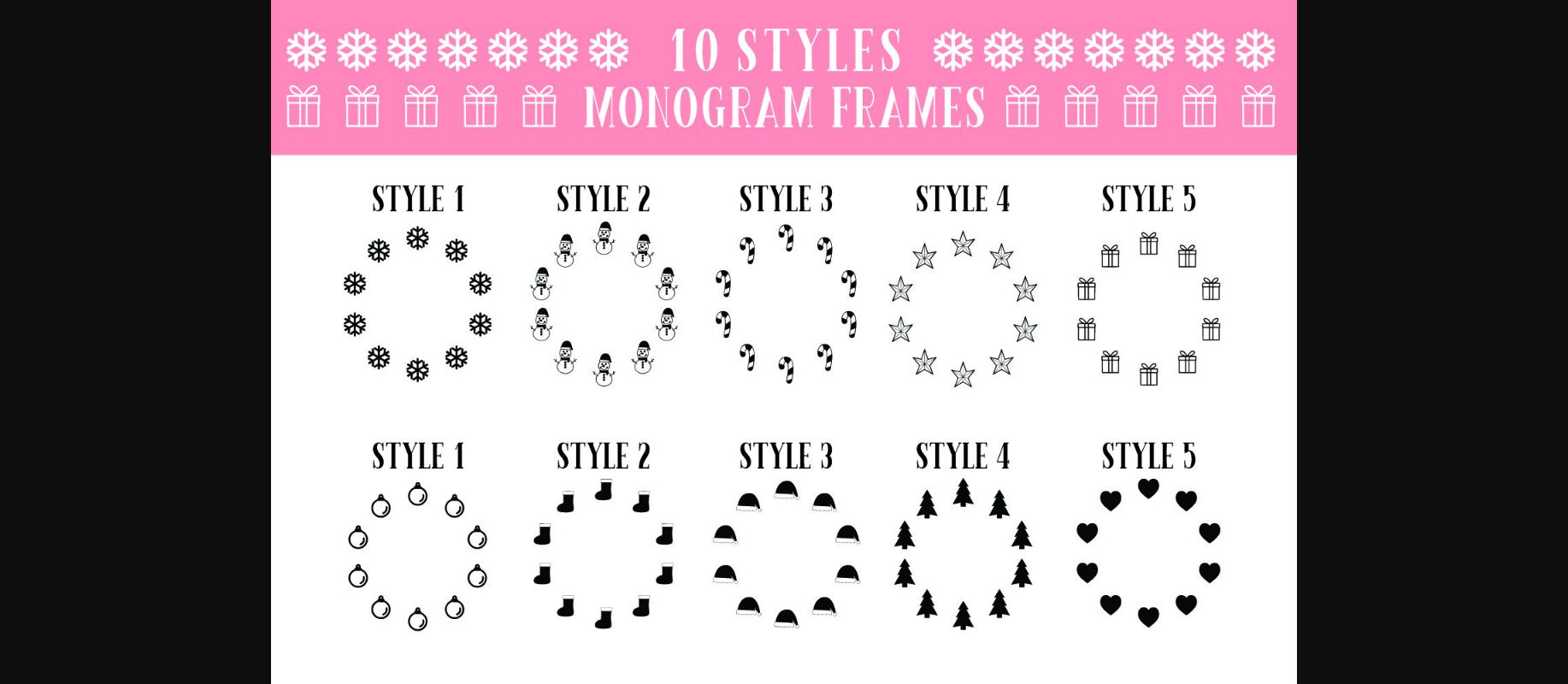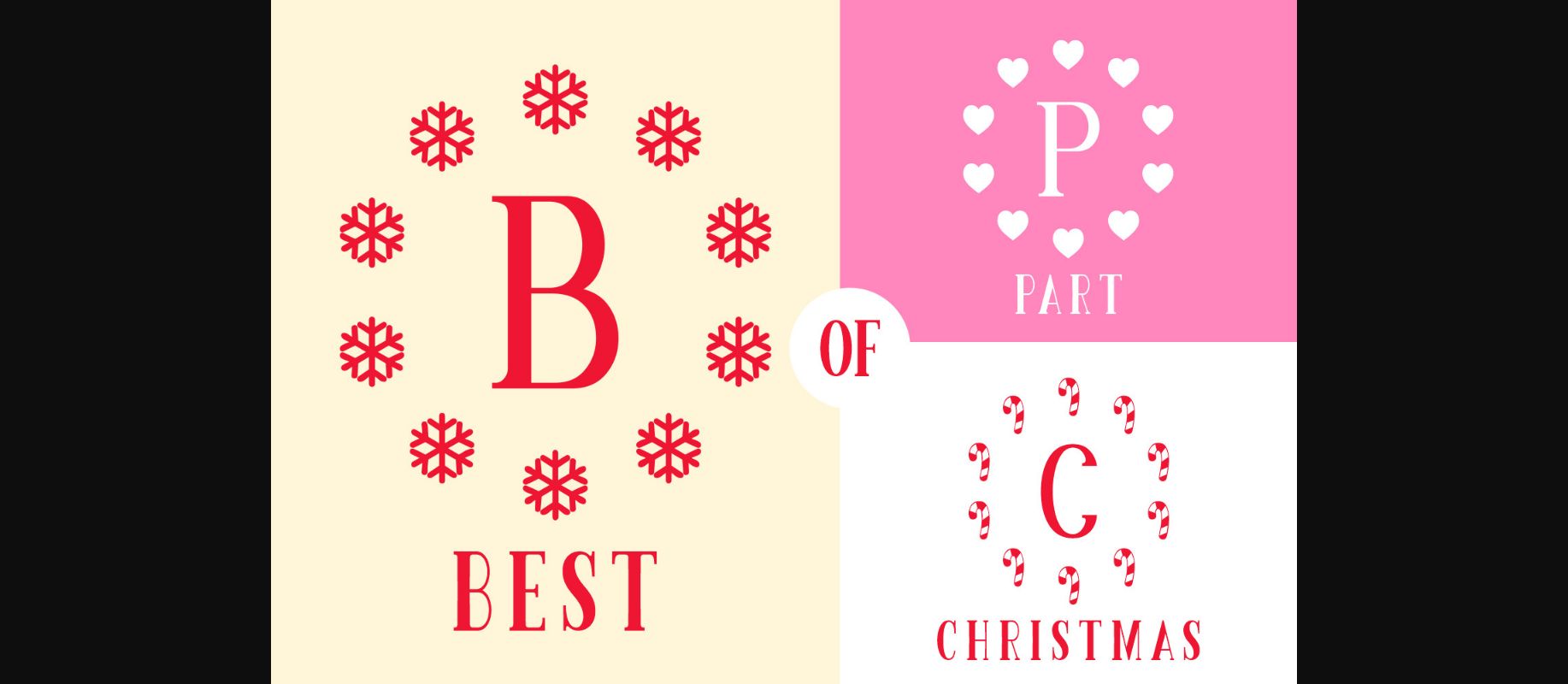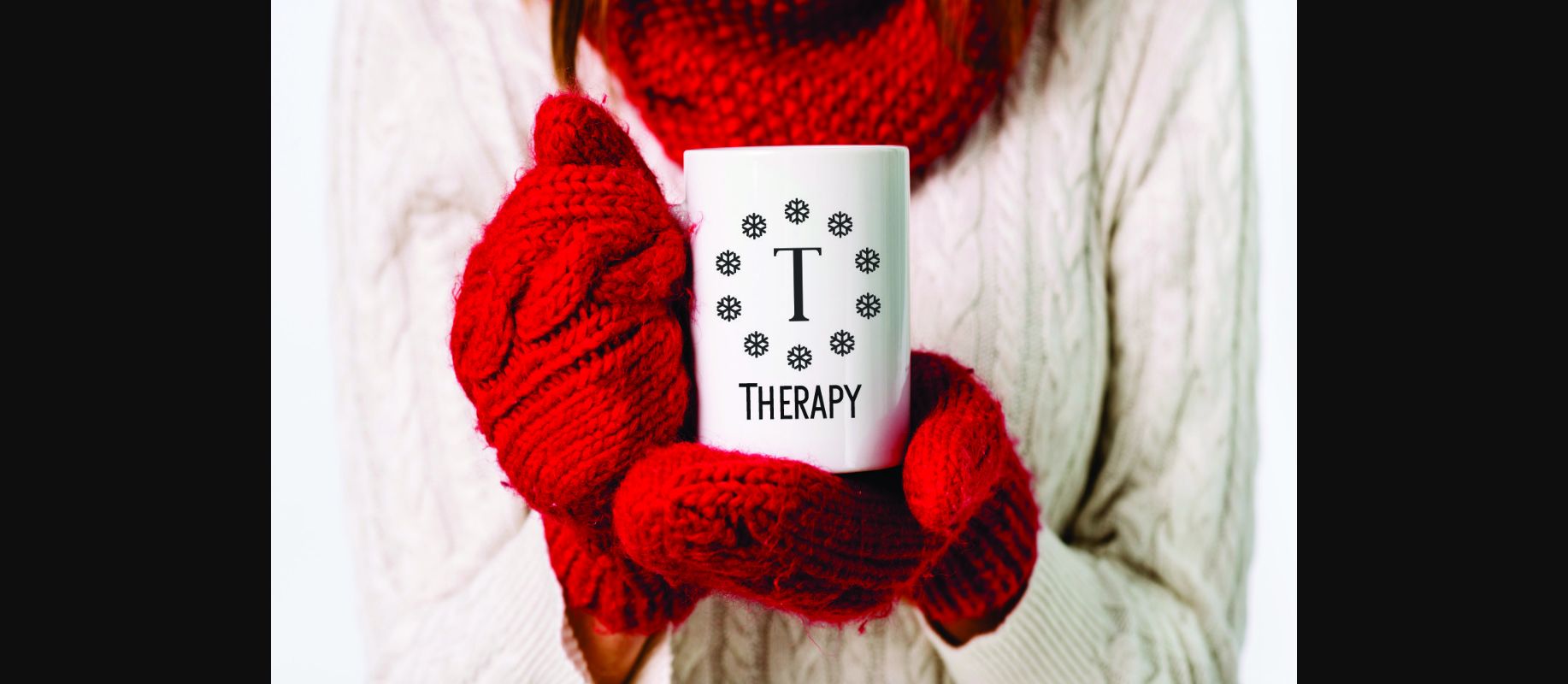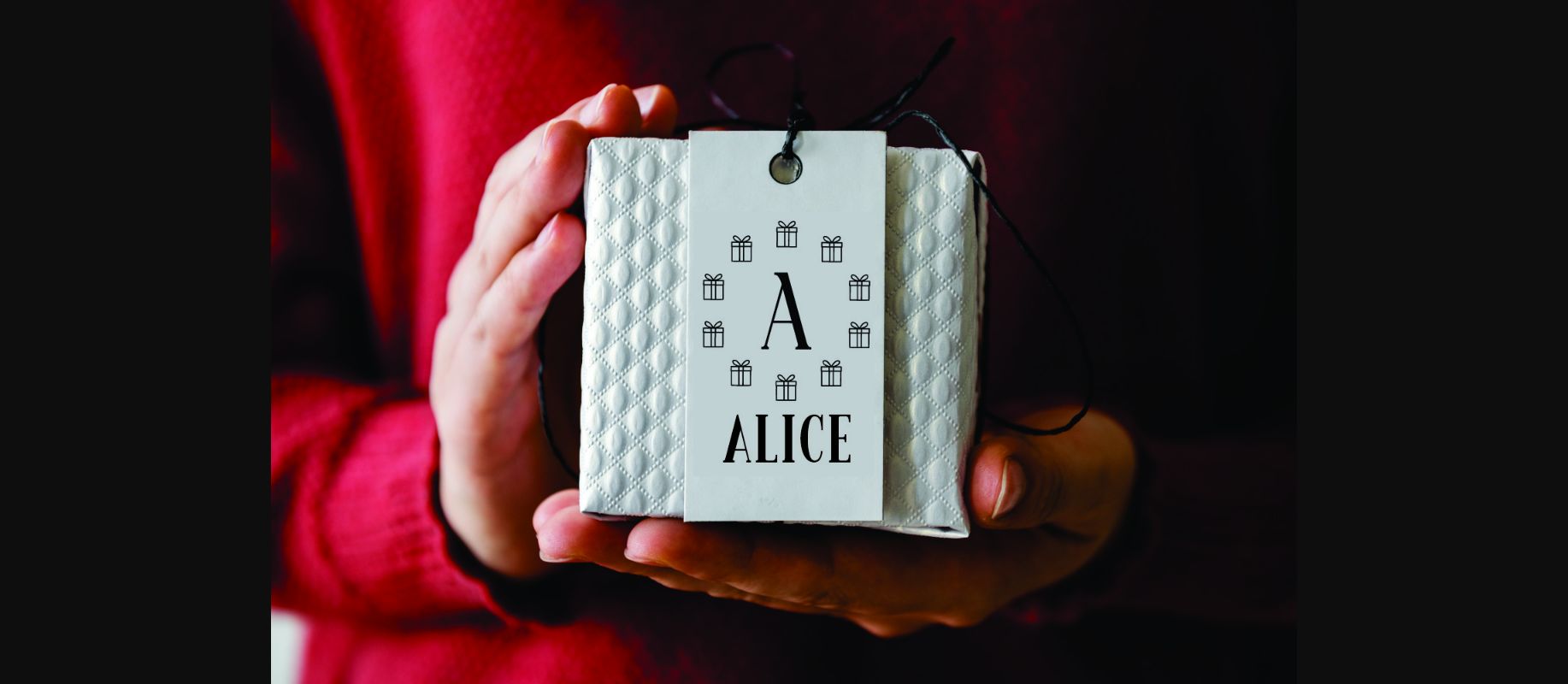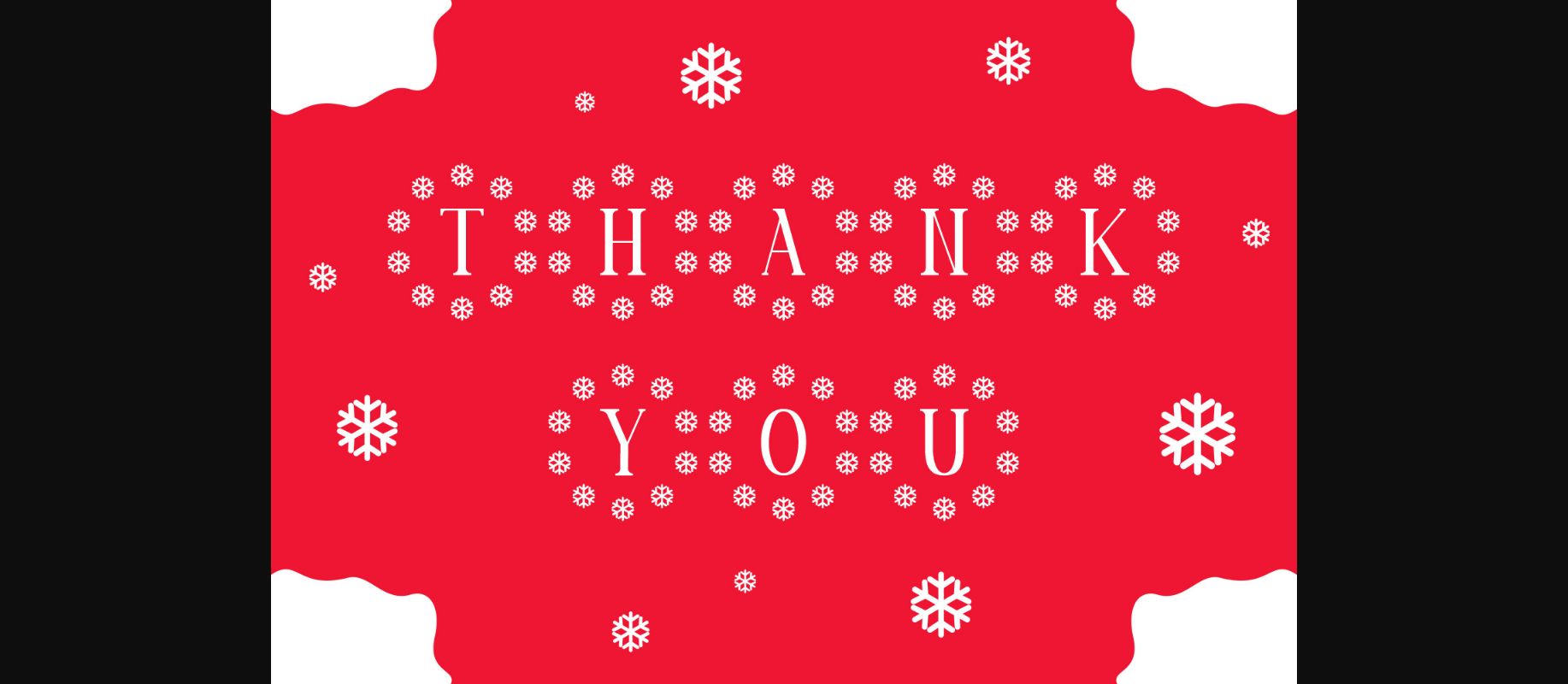
Best Part of Christmas Font
About Best Part of Christmas Font
Best Part of Christmas is a festive, sweet and unique decorative font. Add this ravishing looking font to each of your love letters, wedding invitations or favorite design ideas, and you will be astounded by the outcome.